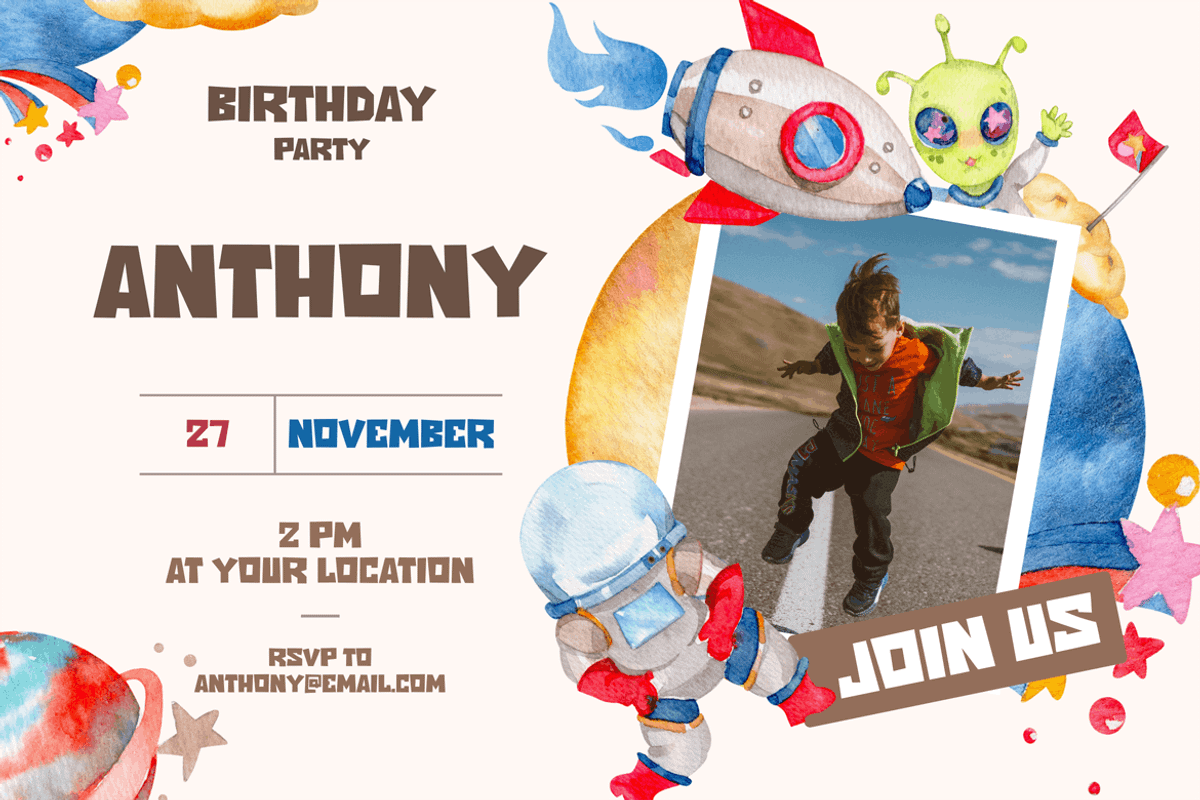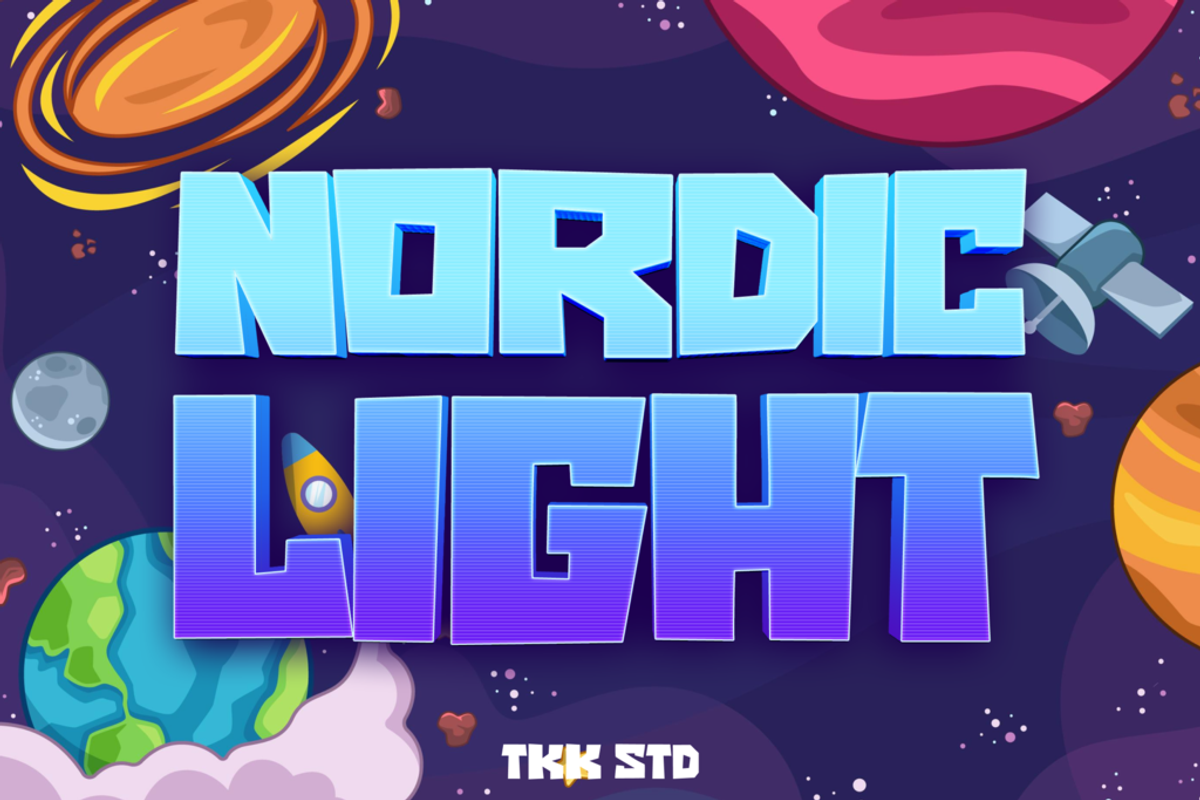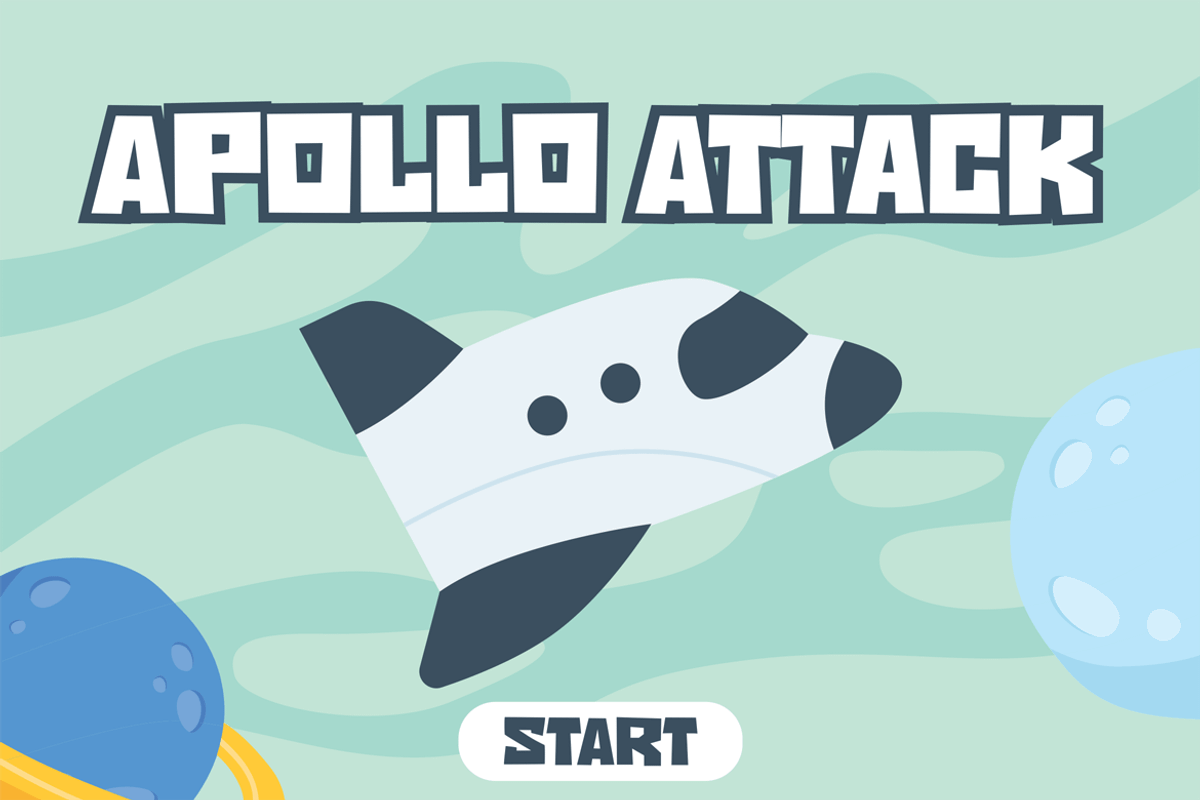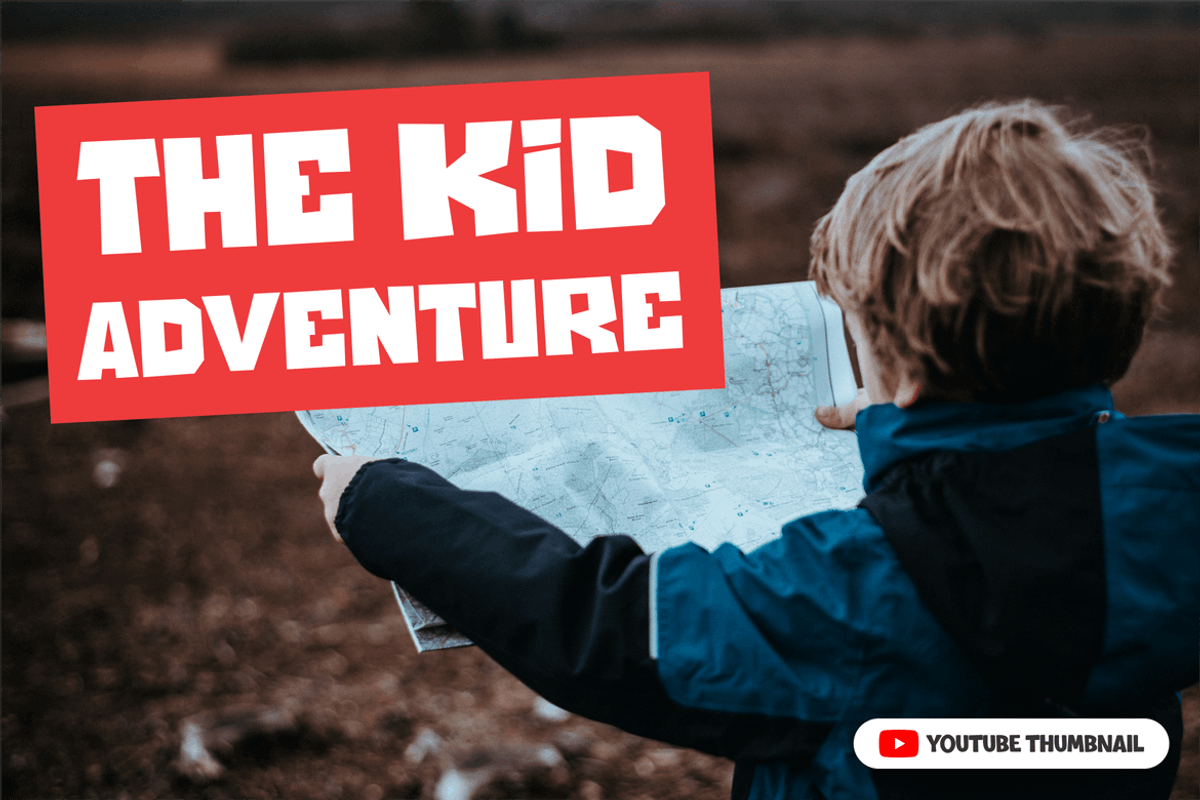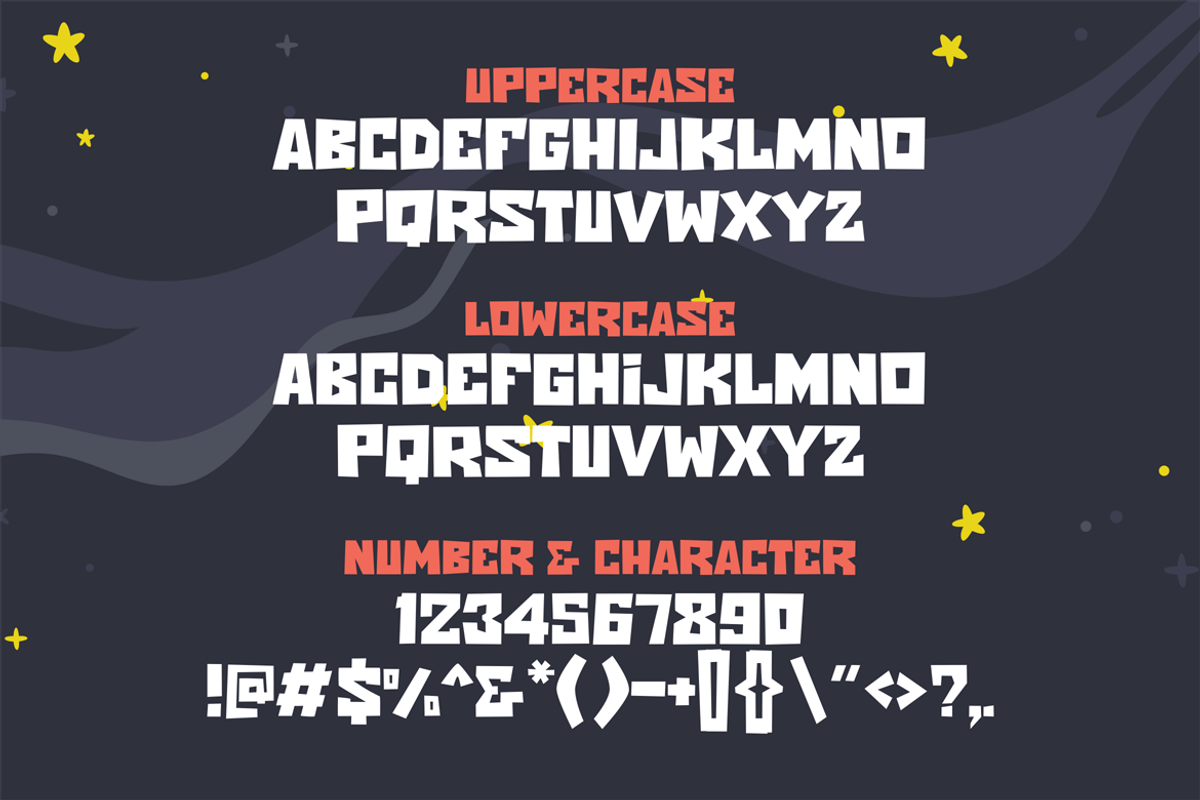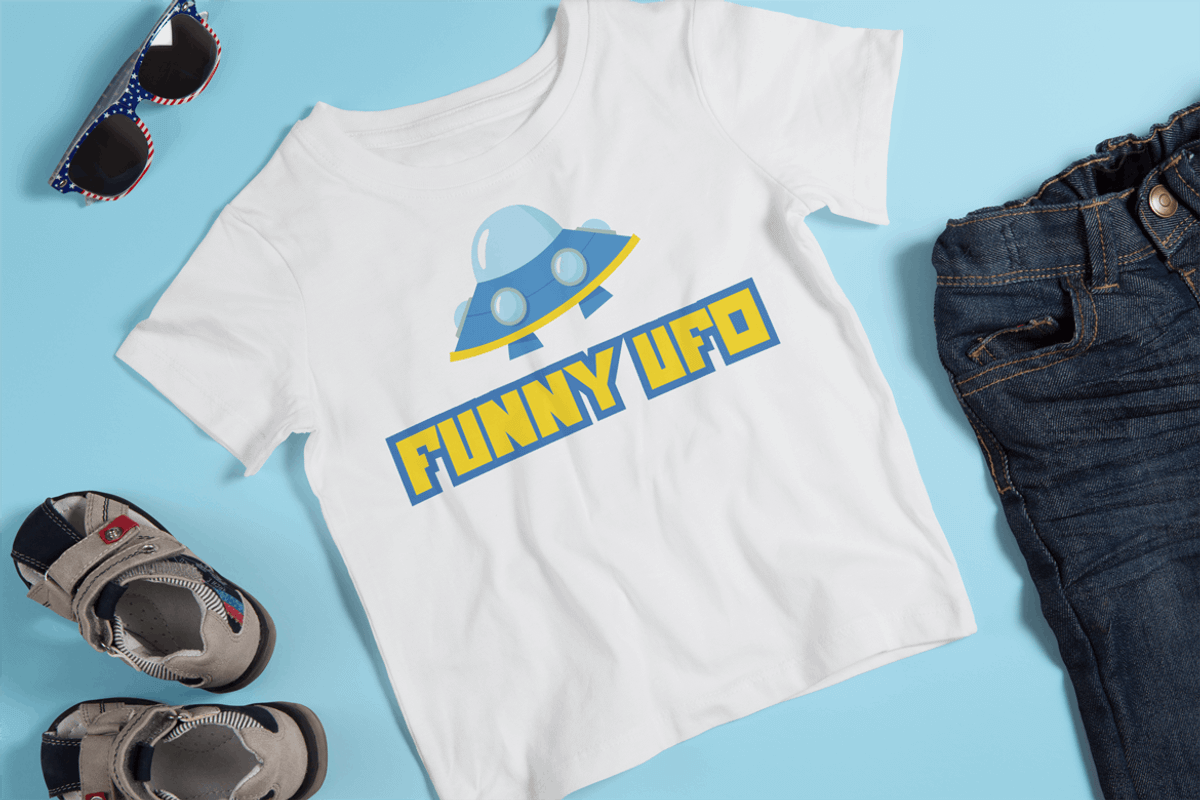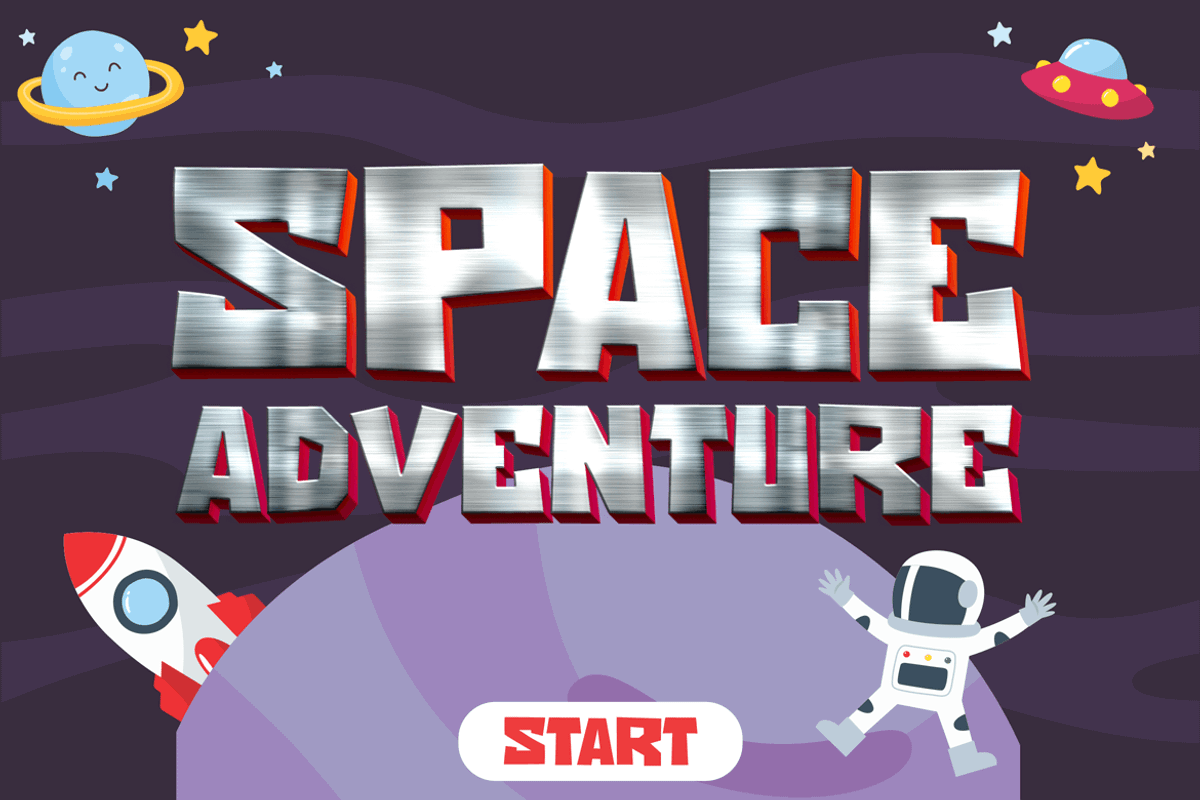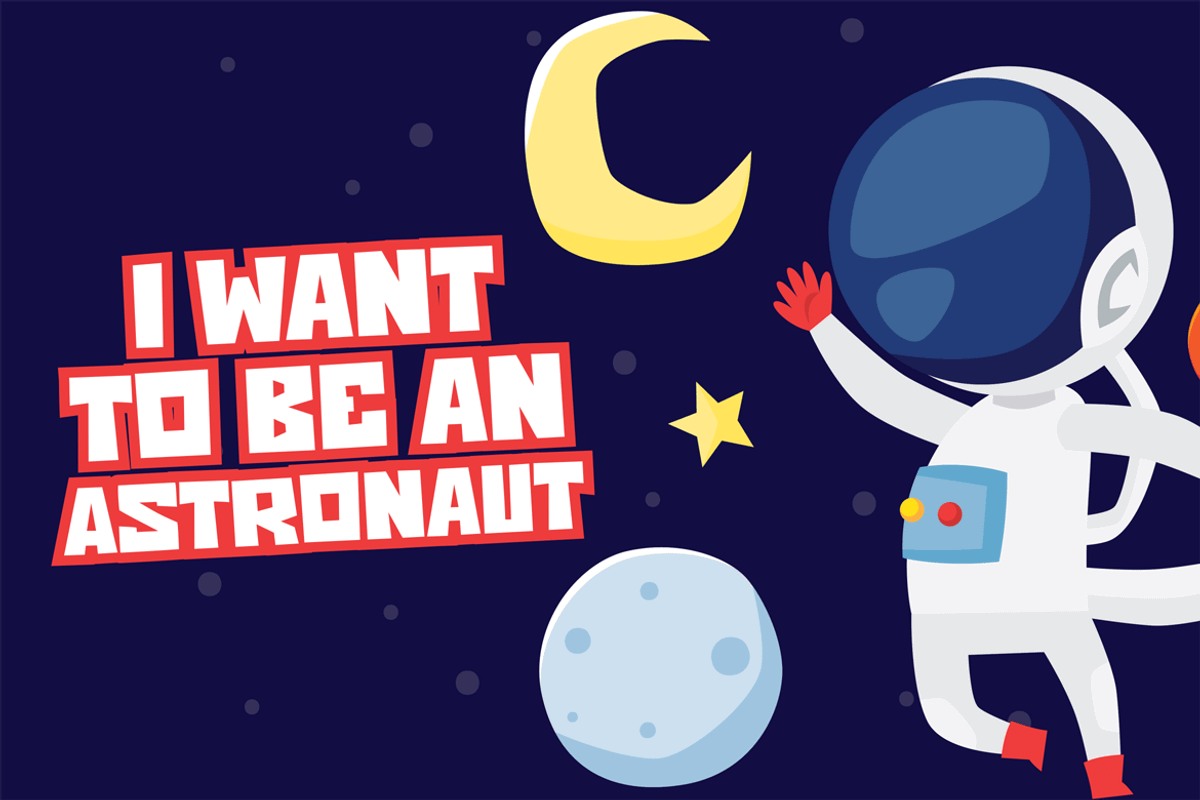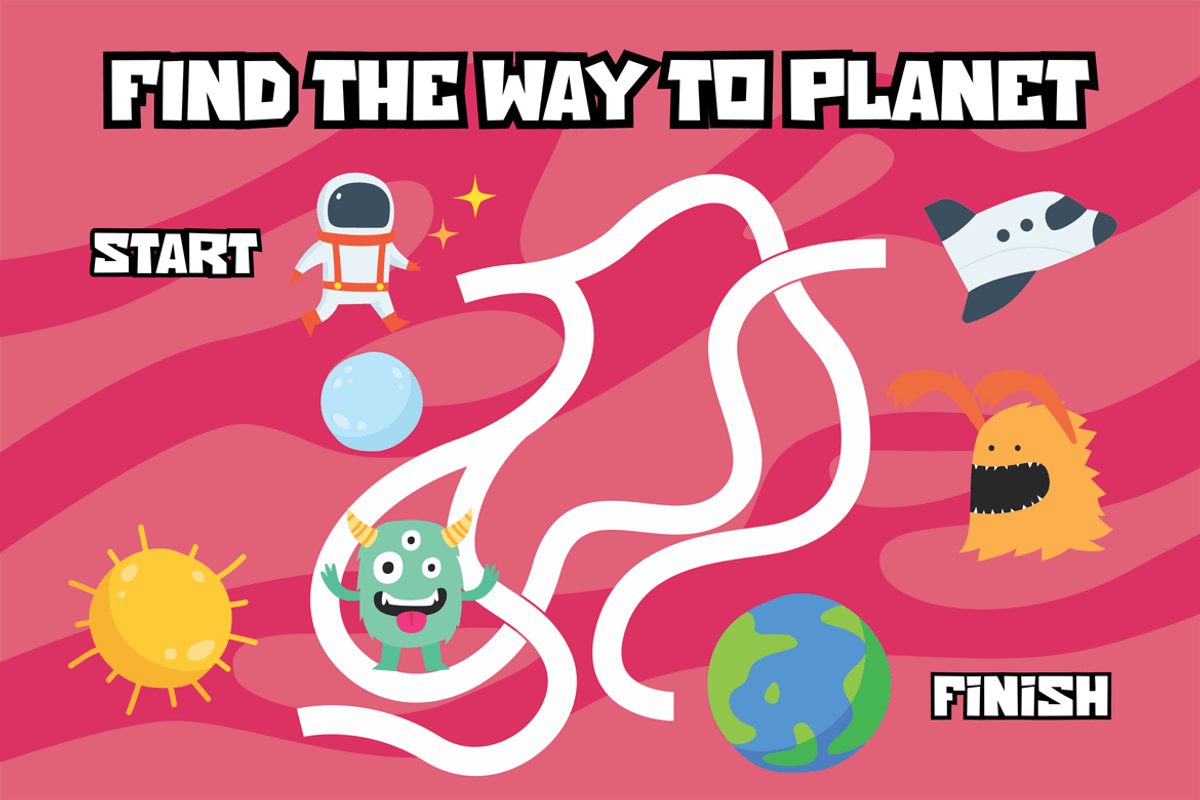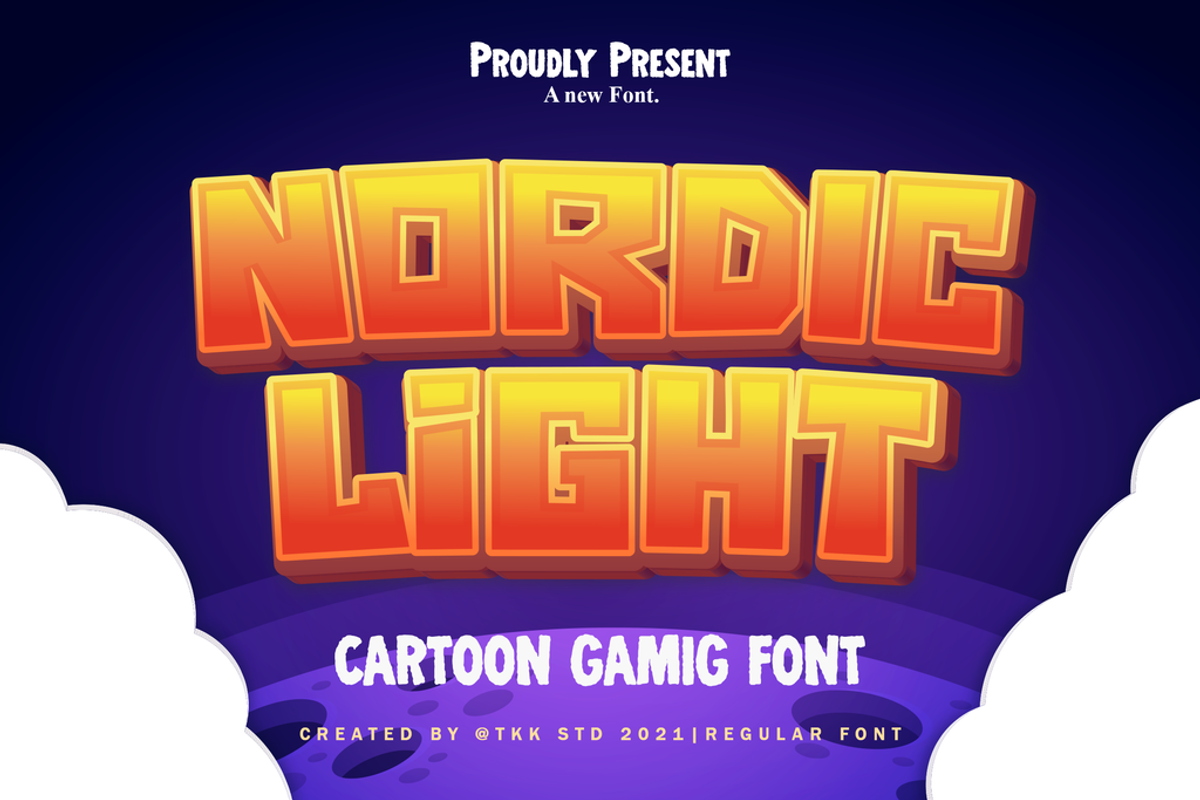
Nordic Light - Gaming Font
Nordic Light gaming font having a squared and jaggy corner, will make emphasize the gaming effect and the adventurous journey on every word you put on the screen.
Suit perfectly for Online Games, poster, movie title, fast food menu, magazine, youtube covers, youtube thumbnails, social media page covers and so on…